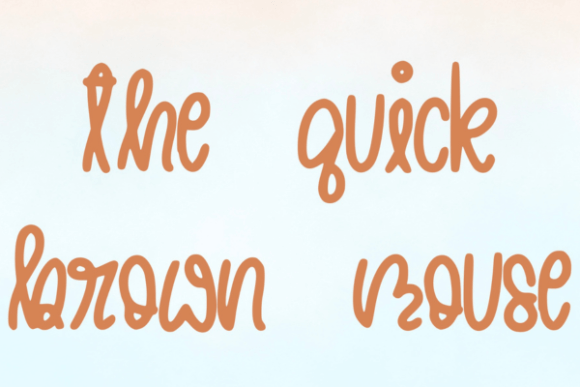
Journey into the realm of enchanting calligraphy with The Quick Brown Mouse Font, a captivating script font that dances across your screen, leaving a trail of elegance and charm. Inspired by the whimsical strokes of a master calligrapher, this font embodies the spirit of creativity and artistry.
Immerse yourself in a world of limitless possibilities, where words become works of art and imagination takes flight. The Quick Brown Mouse Font is your gateway to crafting stunning designs that speak to the heart and ignite the senses. Whether you're a crafter seeking to add a personal touch to your creations or a graphic artist yearning to elevate your designs, this font is your muse, your guiding light in the realm of aesthetic expression.
Unleash your inner artist and let your creativity flourish as you explore the boundless applications of The Quick Brown Mouse Font. Its playful nature lends itself effortlessly to an array of projects, from heartfelt greeting cards and personalized invitations to eye-catching posters and social media graphics. With its compatibility with tools like Procreate and Silhouette Design Studio, this font seamlessly integrates into your creative workflow, allowing you to bring your visions to life with ease.
Indulge in the beauty of handwritten typography and discover the magic that awaits within The Quick Brown Mouse Font. Its graceful curves and delicate flourishes evoke a sense of nostalgia, while its contemporary flair keeps your designs feeling fresh and modern. Experience the joy of crafting designs that resonate with your audience, leaving an unforgettable impression that lingers long after the page is turned or the screen fades to black.